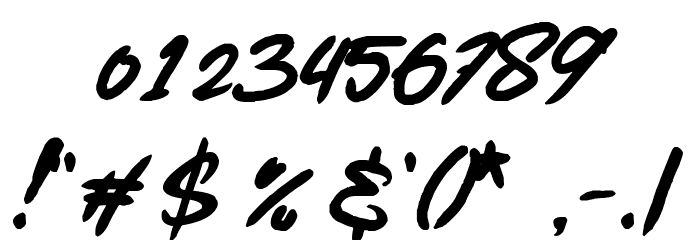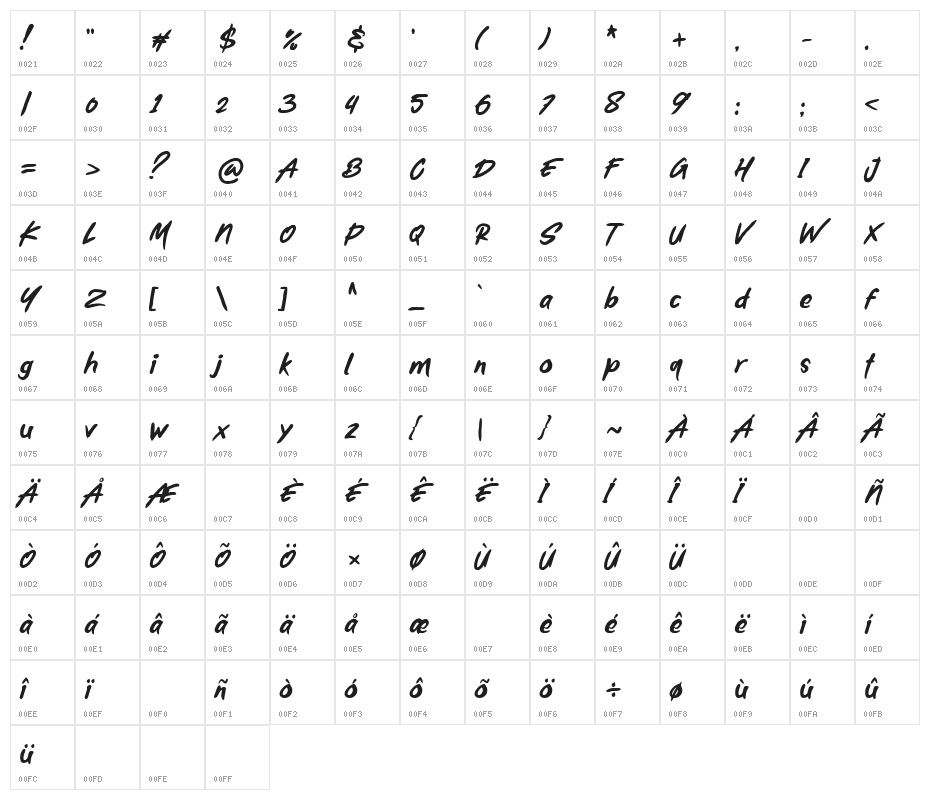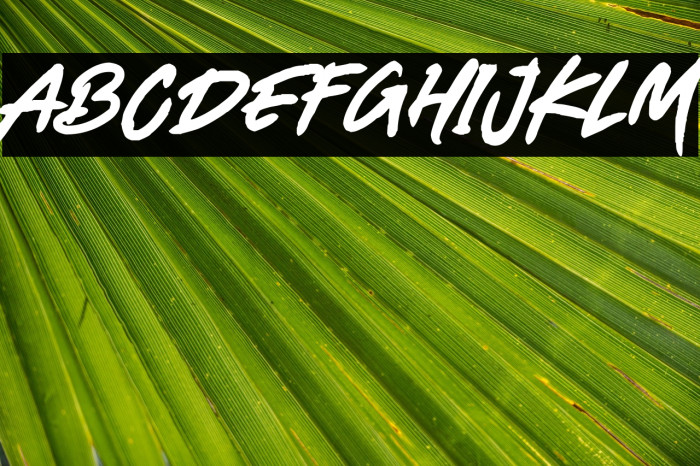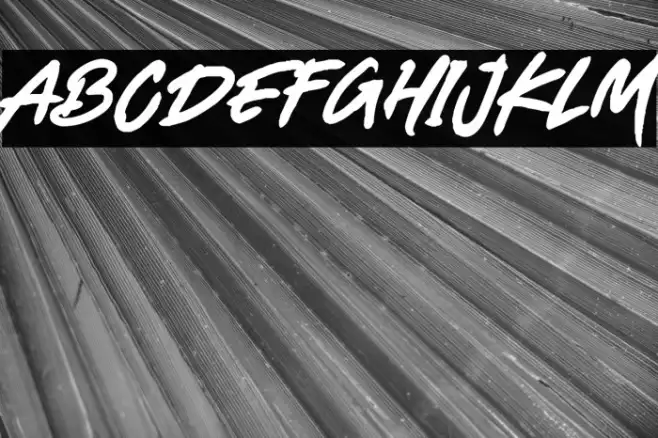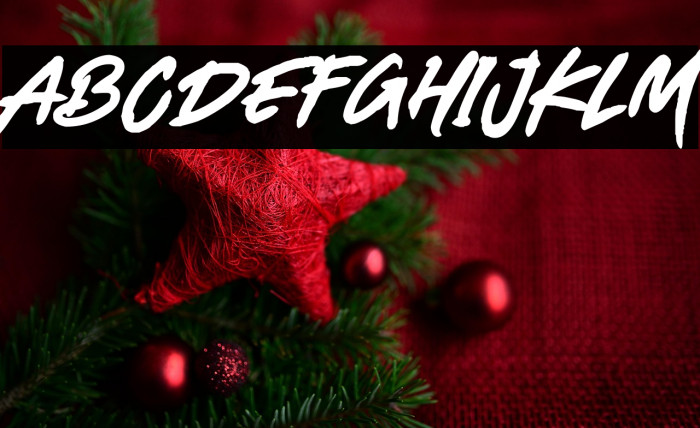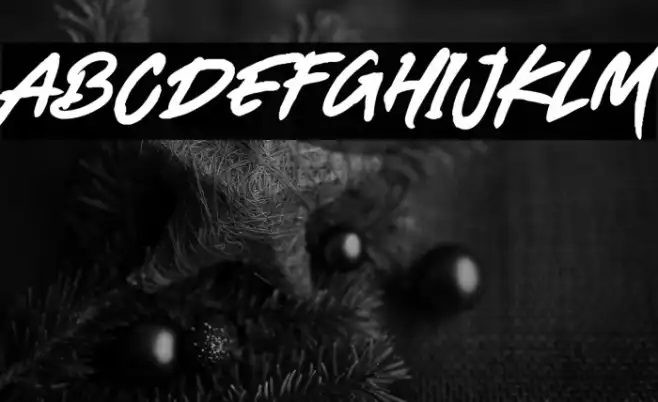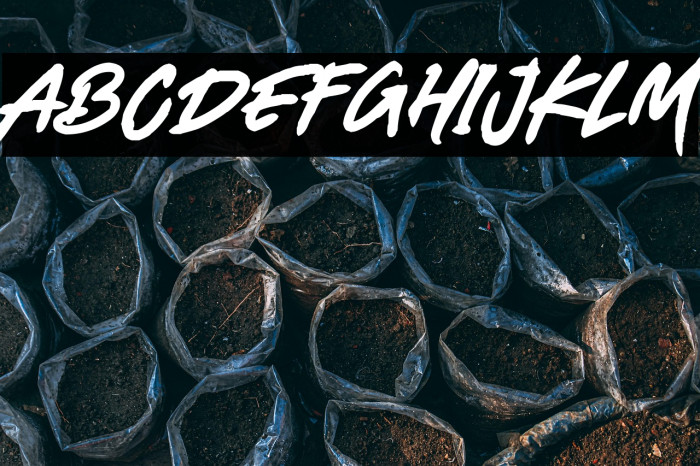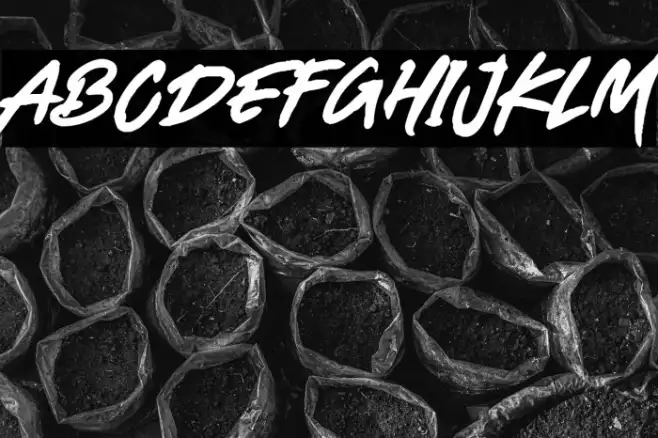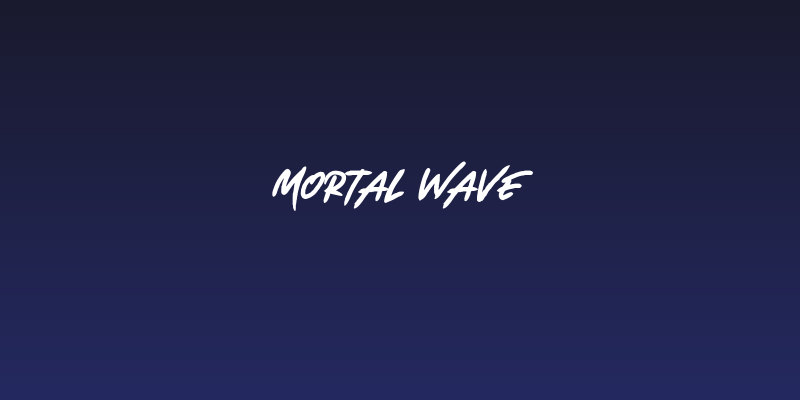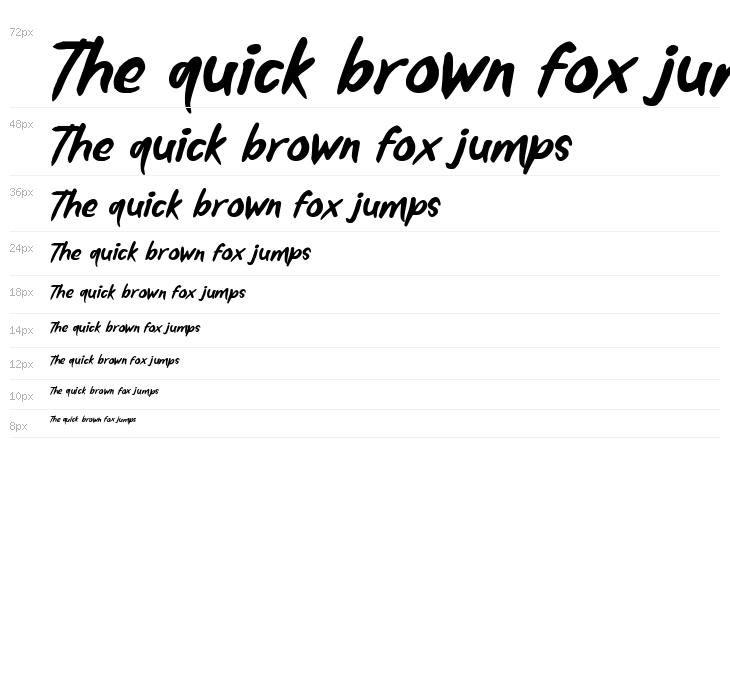
Mortal Wave Font
Mortal Wave Description
This font features a bold and dynamic handwritten style, characterized by its fluid and energetic strokes. The letters are slightly slanted, giving a sense of motion and spontaneity. The uppercase and lowercase letters maintain a consistent style, with a playful yet sophisticated appearance. The numbers and special characters are crafted with the same attention to detail, ensuring a cohesive look across all elements. The font's brush-like texture adds a personal touch, making it ideal for projects that require a human element.